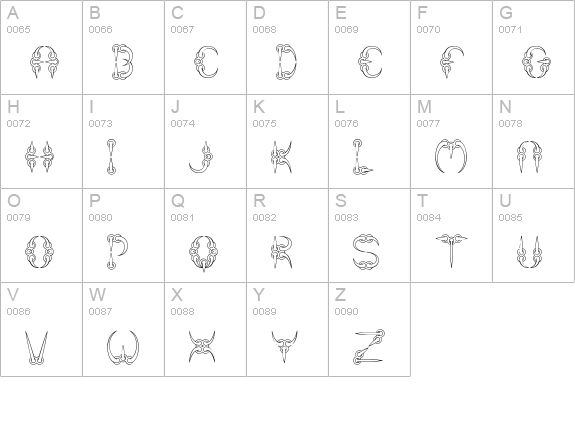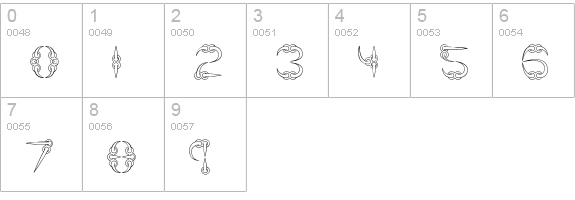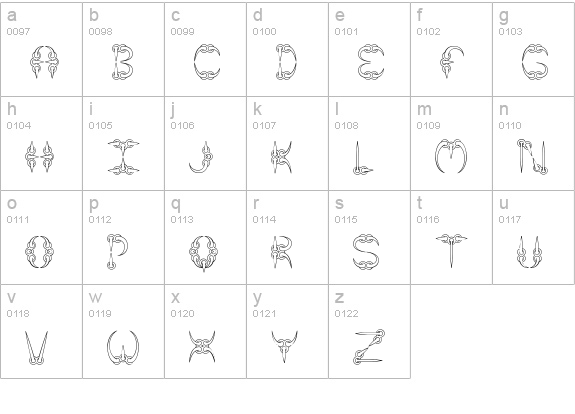
CLAW 1 -BRK- Font Details
CLAW 1 -BRK- font is a bold and dynamic typeface designed to make a powerful statement. With its sharp edges and intricate details, this font exudes strength and individuality. Perfect for headlines, logos, and branding projects, CLAW 1 -BRK- font demands attention and leaves a lasting impression. What sets CLAW 1 -BRK- font apart is that it is available for free download at FontsMarket.com. Now you can add this eye-catching font to your collection without breaking the bank. Don't miss out on the opportunity to enhance your designs with the unique style of CLAW 1 -BRK- font. Download it today and let your creativity soar.